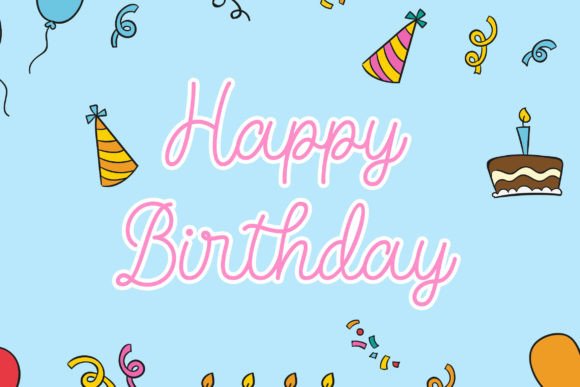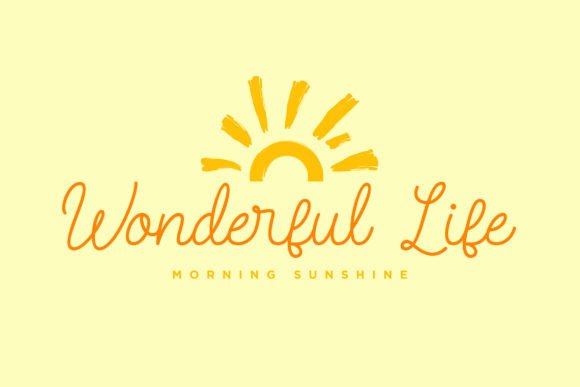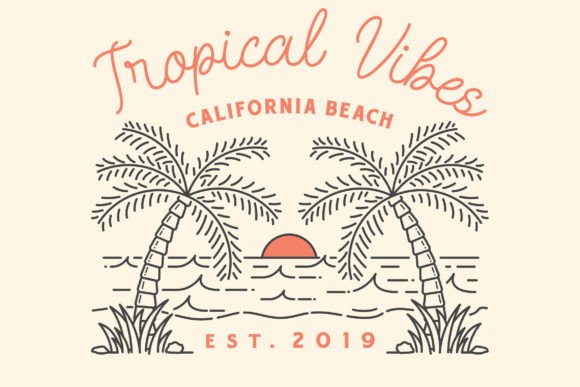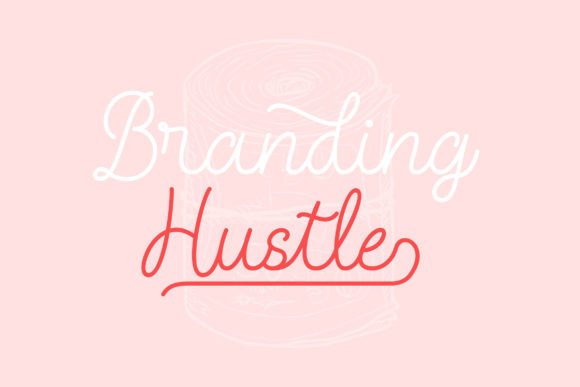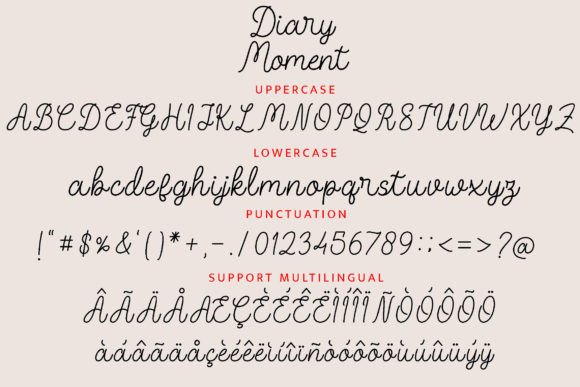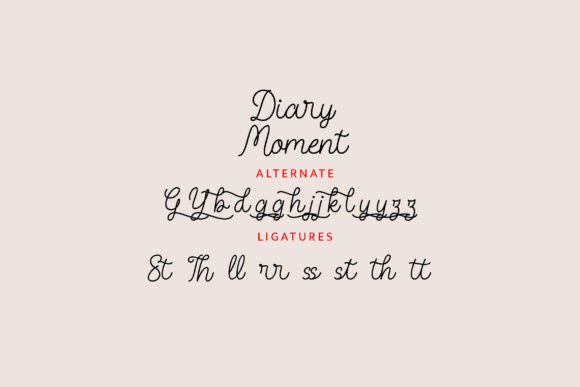
Diary Moment Font
Add elegance and grace with the Diary Moment font. This thin-lettered script font features a ravishing style that enhances any design. Whether you’re creating invitations, branding, or social media graphics, this font adds sophistication.
The Diary Moment font is PUA encoded, meaning you can easily access all the amazing glyphs and ligatures. This makes your designs more versatile and unique, allowing for creative freedom.
This font works well across various projects. Use it for logos, greeting cards, posters, quotes, and decorative text. Its flowing strokes provide a delicate and polished look, balancing beauty with readability.
Despite its thin style, the Diary Moment font remains readable at different sizes. Whether for bold titles or subtle accents, it adapts perfectly. This versatility makes it a great choice for many creative applications.
Using this font will elevate your projects. It adds a refined and elegant vibe. If you want your designs to stand out with grace and style, the Diary Momentfont is an excellent choice.
In summary, the Diary Momentfont fits many design needs. From elegant invitations to branding, it brings charm and sophistication. Download it today and create beautiful, memorable designs with a thin, graceful script.